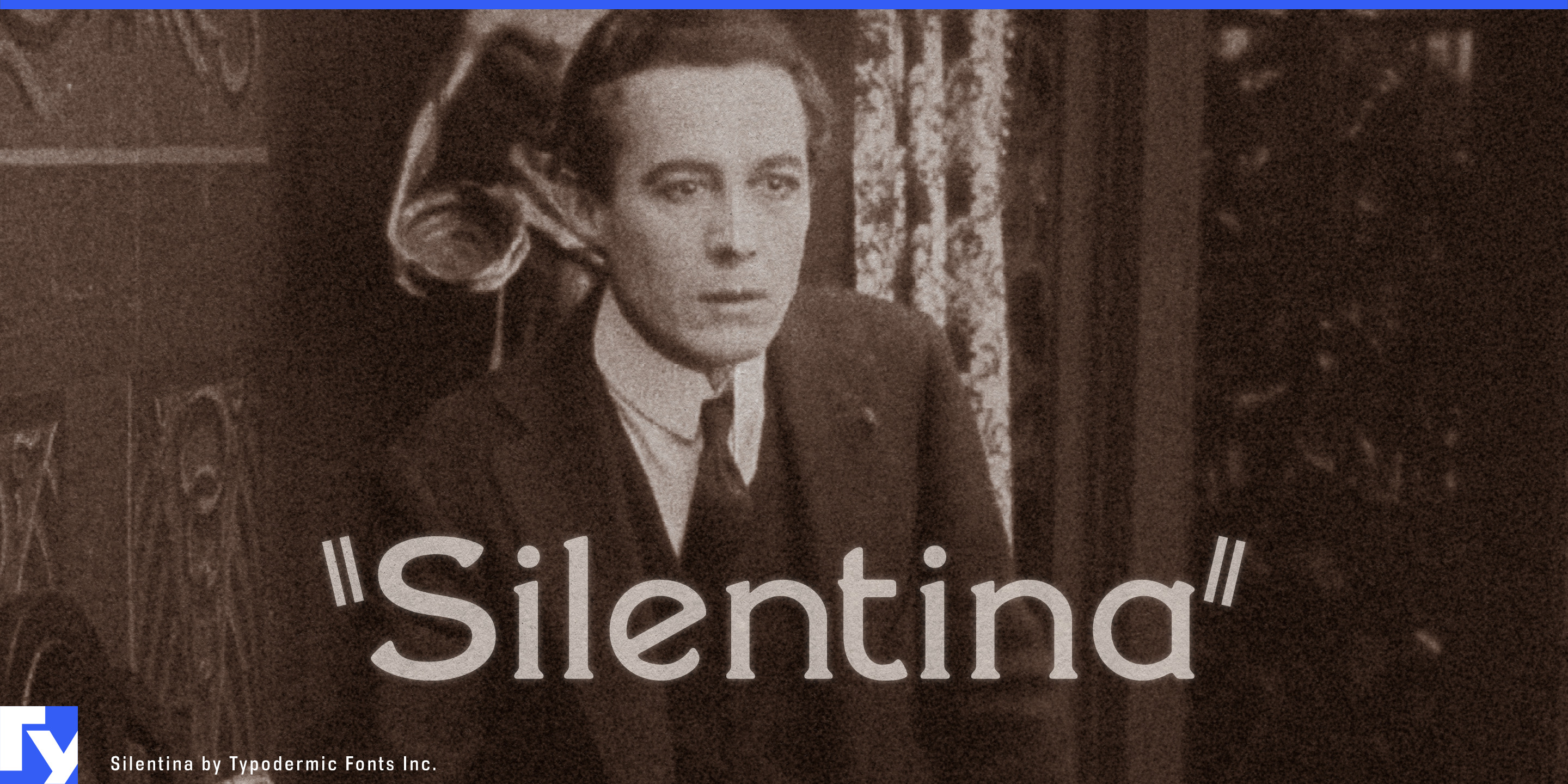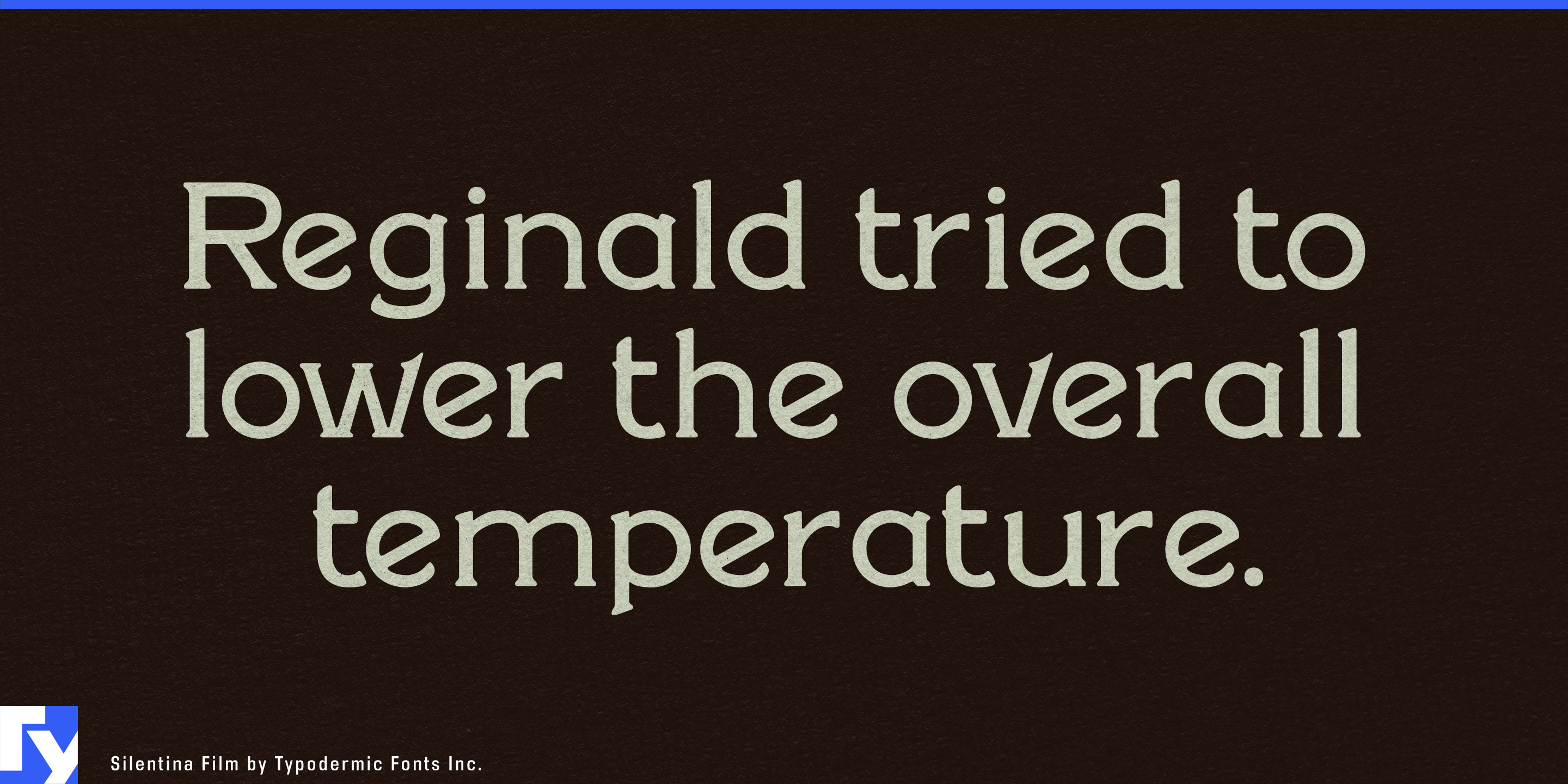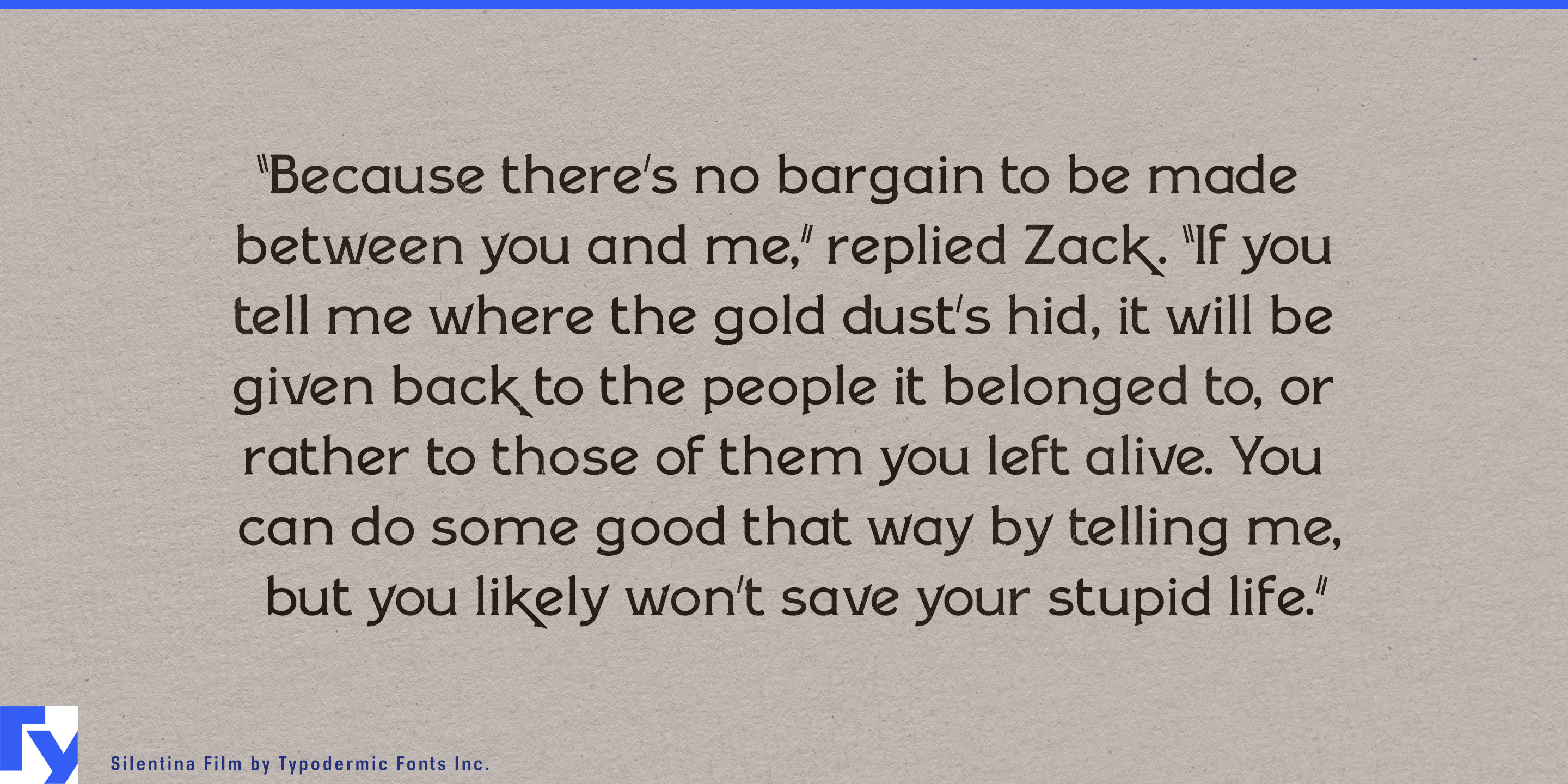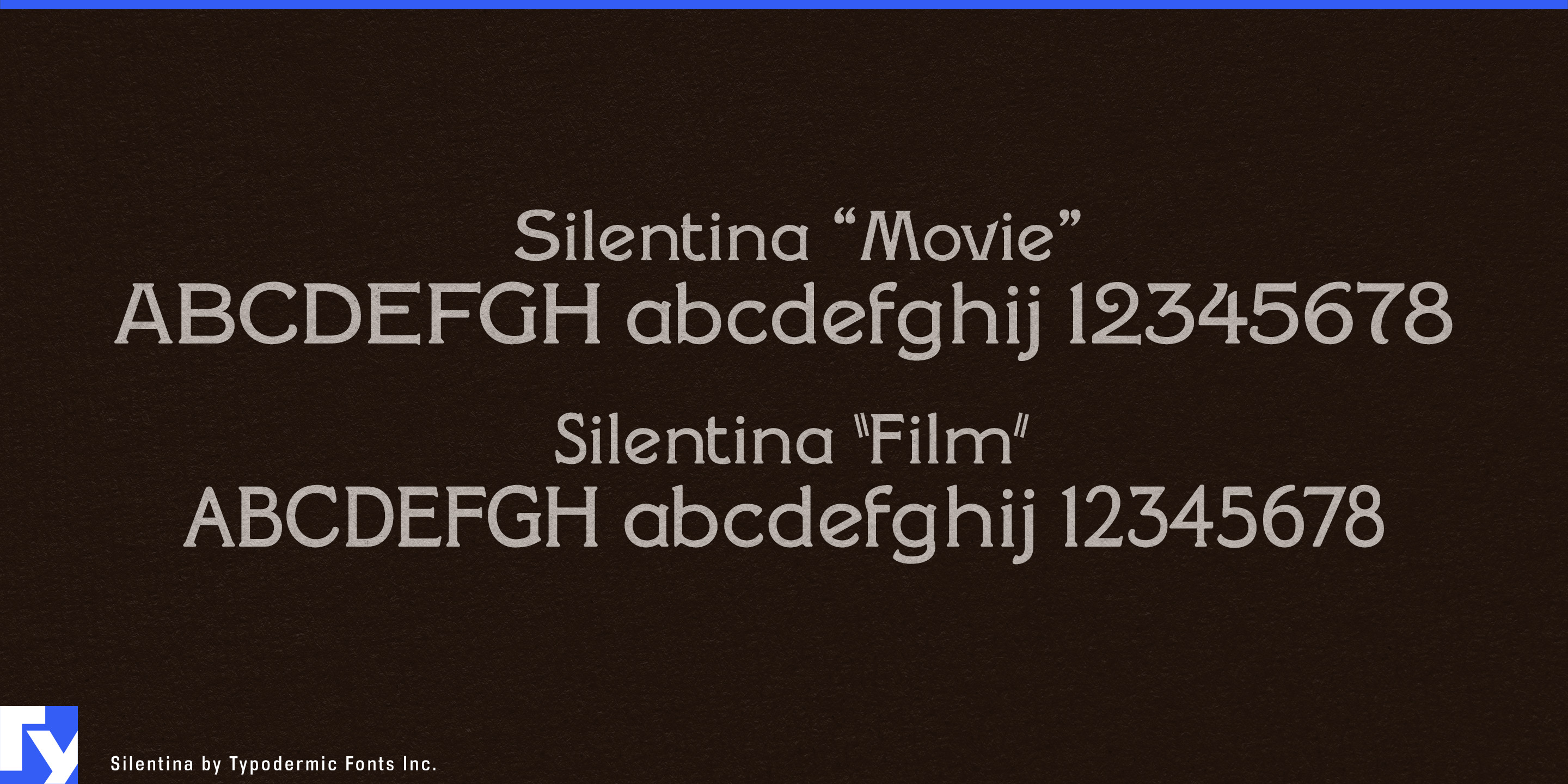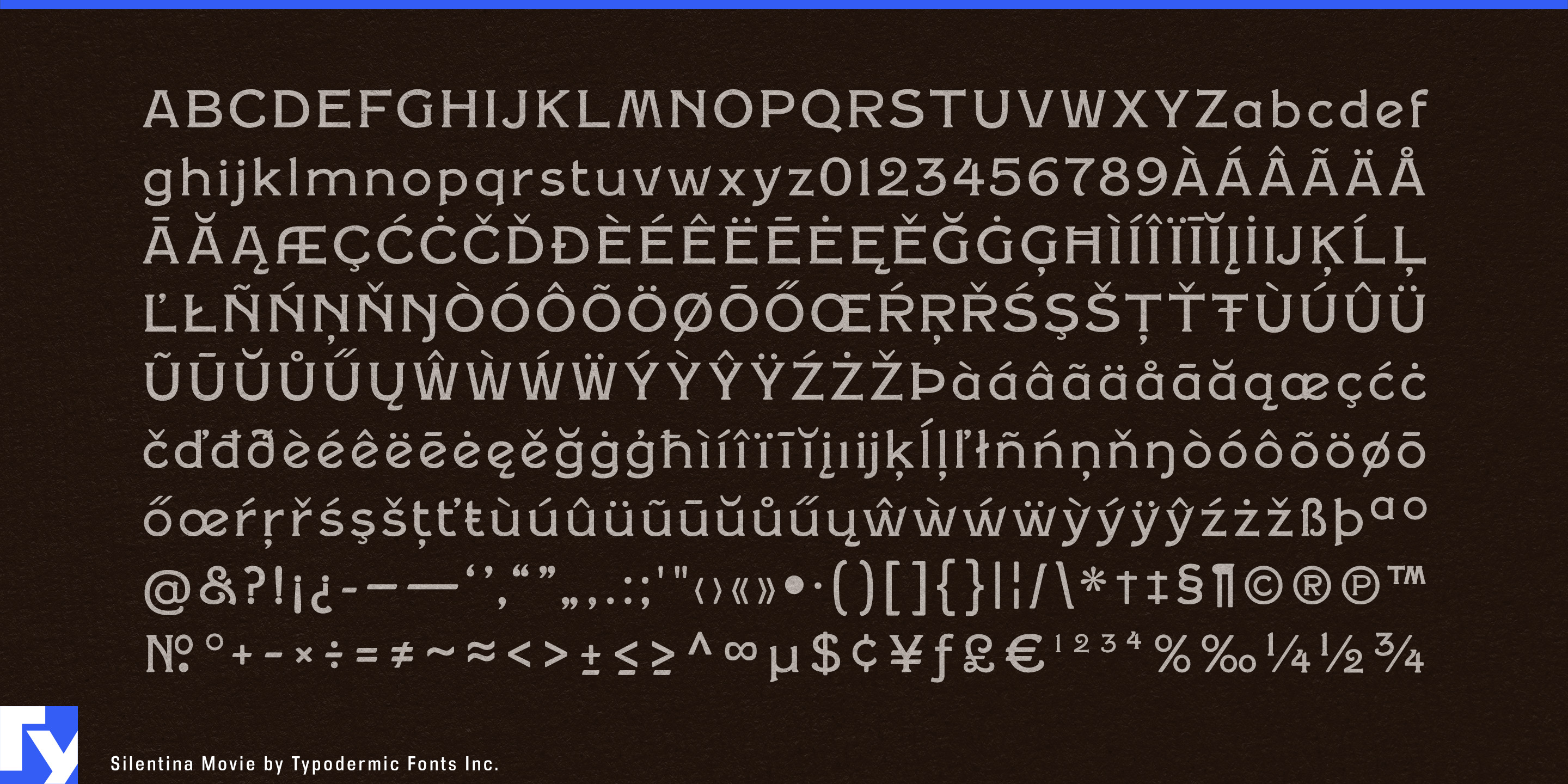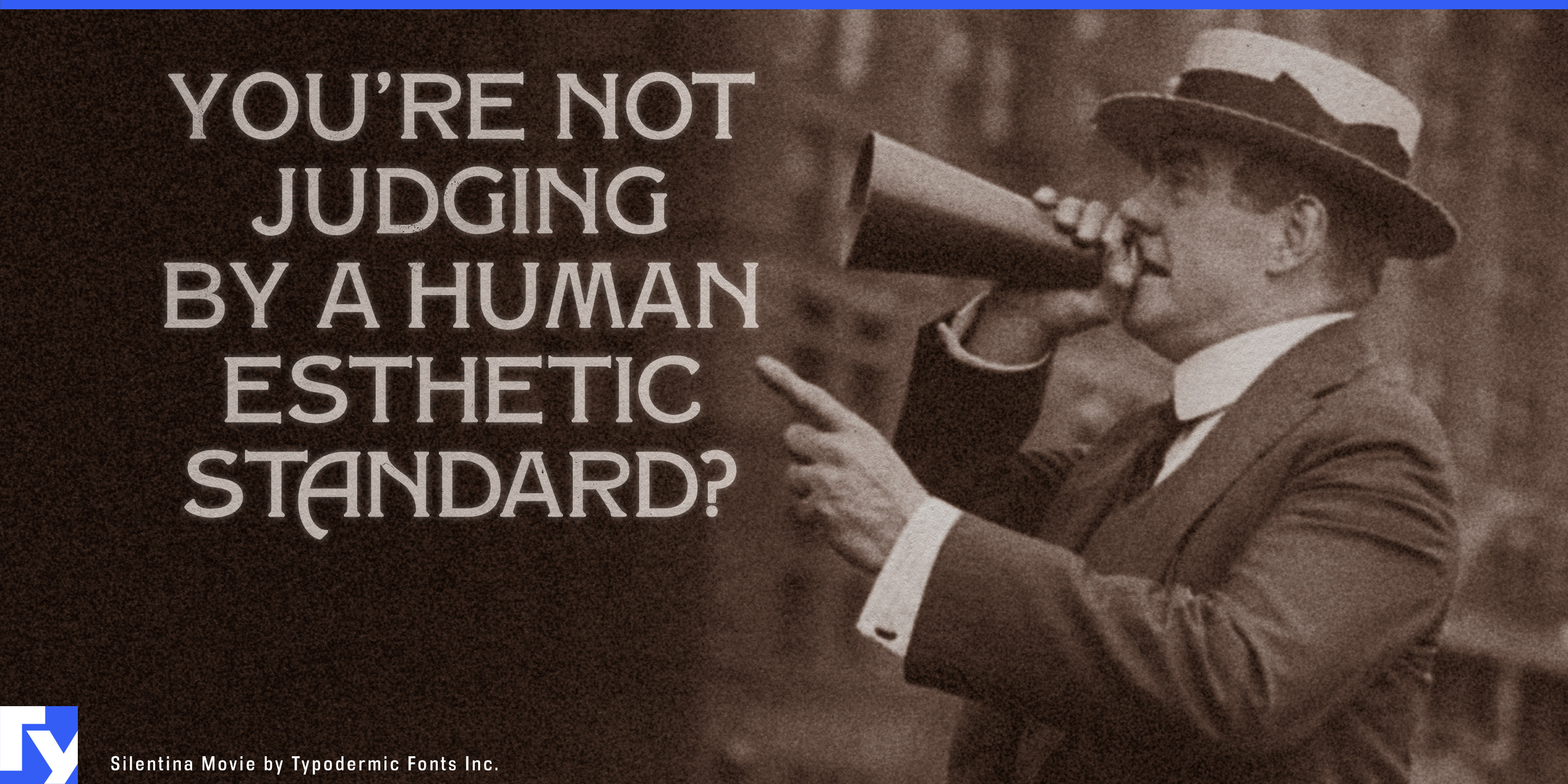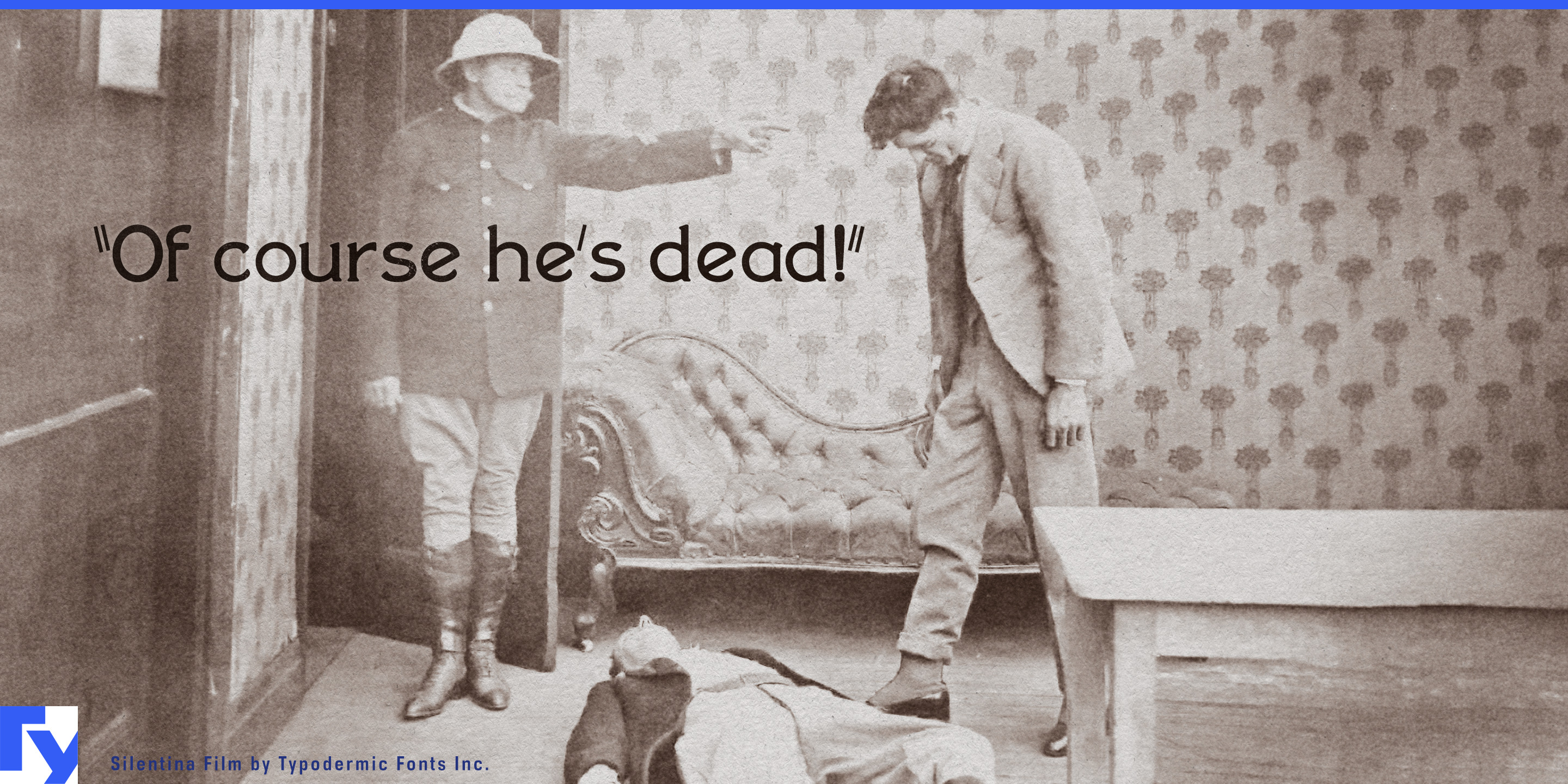
Silentina
Silentina evokes the elegance and drama of early cinema, drawing directly from the typographic language of silent film intertitles. Its design blends the graceful curves of Pastel with the refined capitals of Della Robbia, a historically accurate pairing once common in the golden age of film. Every character is drawn with softened edges and understated serifs, a deliberate choice that lends an authentically pre-digital texture and eliminates the need for added blur or effects. This subtle softness makes Silentina especially convincing in period settings while ensuring it remains crisp and legible on modern screens.
Available in two variants, Silentina Movie and Silentina Film, it offers designers nuanced options for capturing the right tone. Both share the calm rhythm and balanced proportions that keep text readable at a range of sizes, yet each brings its own character—the slight shifts in detail and proportion reflecting the diversity found in original intertitles. These qualities allow Silentina to excel not only in film projects but also in book covers, packaging, menus, posters, and branding that seek a vintage sensibility.
Its charm lies in its versatility. Silentina can carry the nostalgic weight of a 1920s title card, yet adapt seamlessly to contemporary layouts where warmth and historical texture are part of the brief. Supporting a wide range of Latin-based languages, it enables cross-cultural storytelling while maintaining its distinctive period voice. Whether introducing a scene, branding a product, or framing an invitation, Silentina delivers an authentic touch of silent-era refinement, capturing the poise and artistry of a bygone age in every line of text.